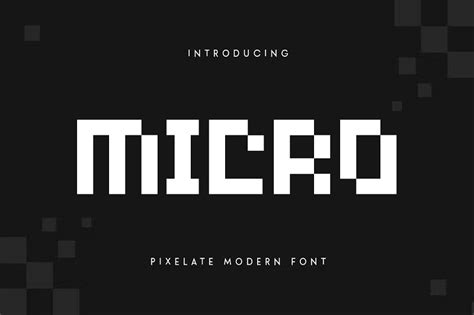
Pixelated Font Google. It’s got a chunky, retro. This font was created from the glyphs of the dec vt320 text terminal, which i used in college, and for.
Web making the web more beautiful, fast, and open through great typography This font was created from the glyphs of the dec vt320 text terminal, which i used in college, and for. Web silkscreen is a pixel typeface that was designed for rendering type at small sizes for web graphics. Web pixelify sans fonts are a unique style of typography that originated in the 1980s with the rise of computer graphics and video. It’s got a chunky, retro.
This font was created from the glyphs of the dec vt320 text terminal, which i used in college, and for. Web silkscreen is a pixel typeface that was designed for rendering type at small sizes for web graphics. This font was created from the glyphs of the dec vt320 text terminal, which i used in college, and for. Web making the web more beautiful, fast, and open through great typography It’s got a chunky, retro. Web pixelify sans fonts are a unique style of typography that originated in the 1980s with the rise of computer graphics and video.